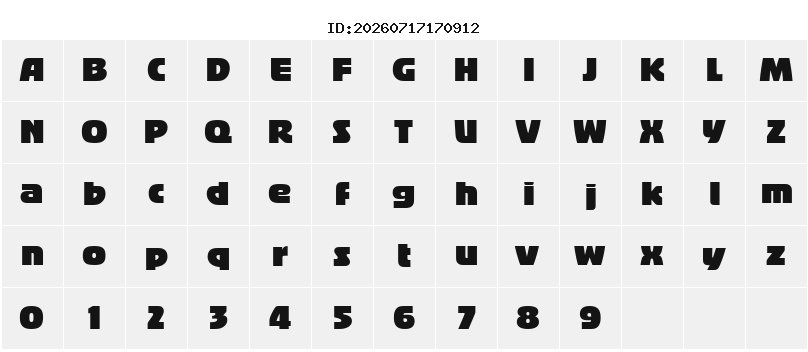
Bigband Preview
• Font Name: Bigband
• Font ID: Linotype-Hell AG Bigband
• Full Font Name: Bigband
• Version: 1.000; 07-07-93
• PostScript Name: Bigband
• Character Count: 196
About Bigband.ttf
Bigband.ttf is a modern, elegant sans-serif font designed for ultimate readability and visual harmony. Perfect for branding, headlines, web design, and print materials.